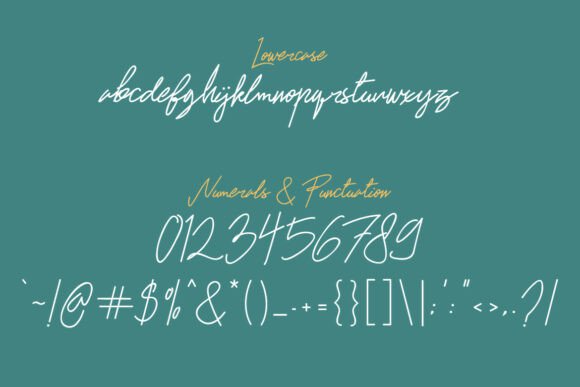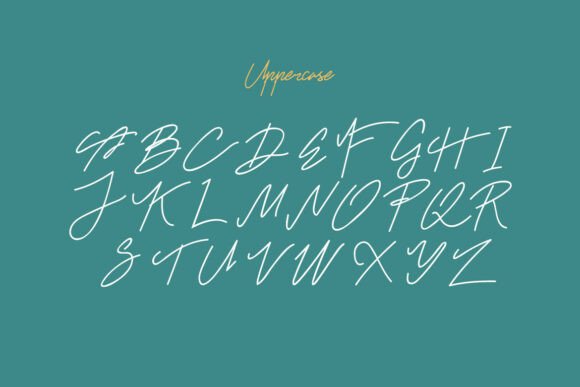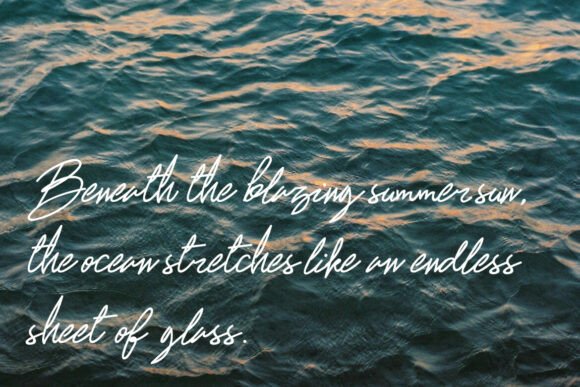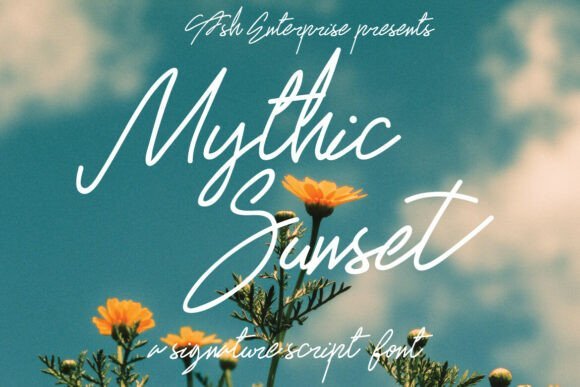
Introduction to Mythic Sunset Font
Mythic Sunset is a typeface designed to highlight the expressive aesthetics of handwriting, reflecting the writer’s emotions with authenticity and character.
This font is well-suited for a wide range of applications, including logos (logotypes, wordmarks, lettermarks), stationery, promotional materials such as posters and other printed media, illustrated storybooks, and various design projects that require an artistic and expressive script style For optimal results, it is recommended to use Mythic Sunset in design software that supports OpenType (OTF) features.